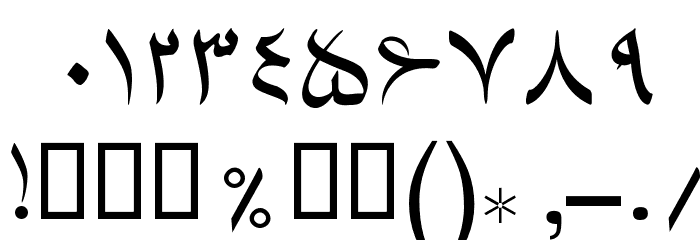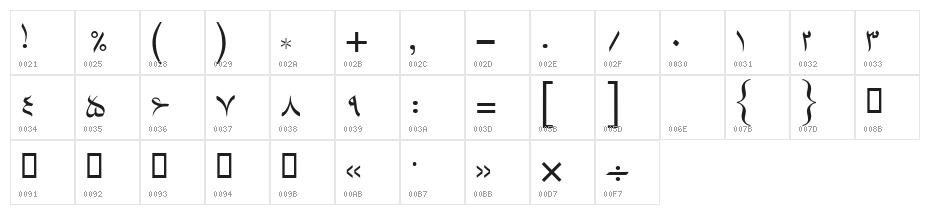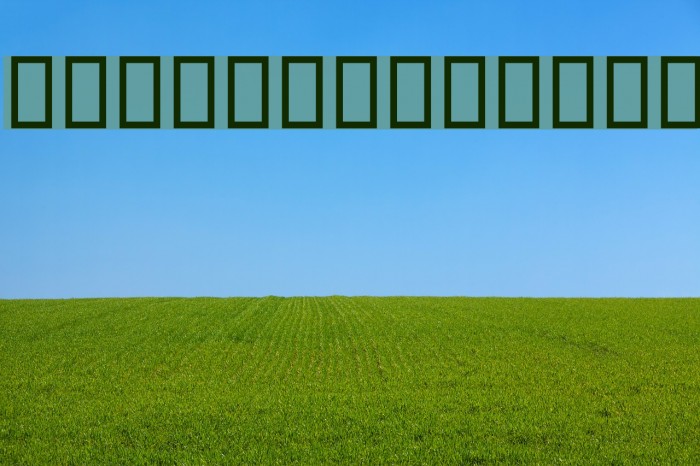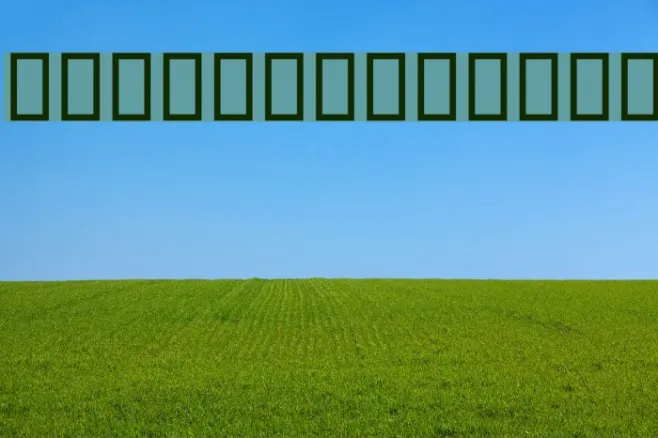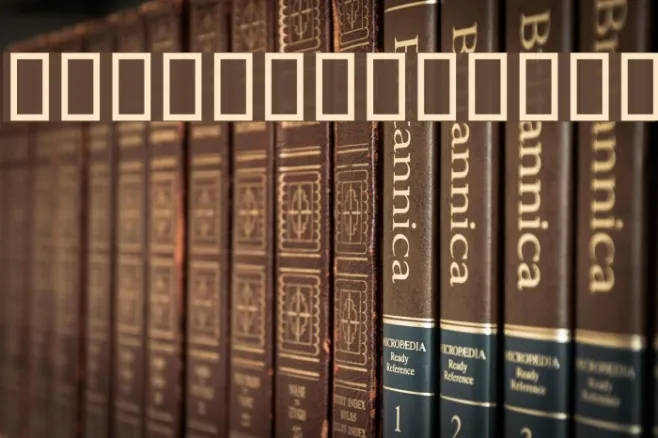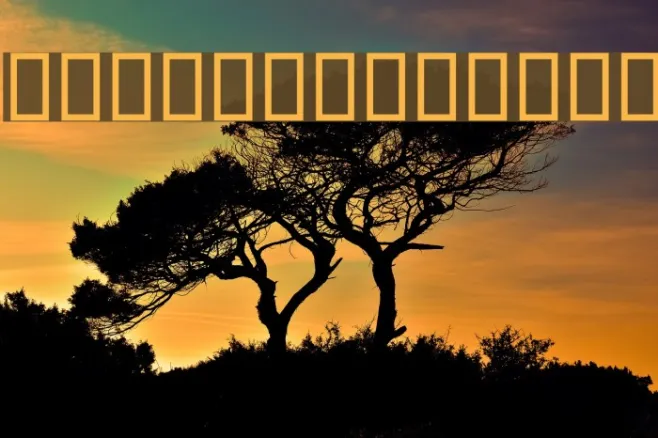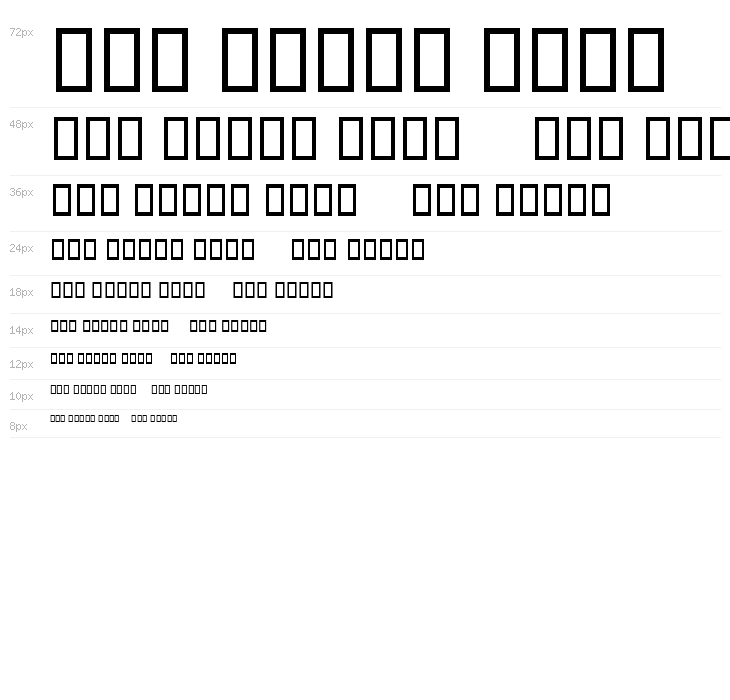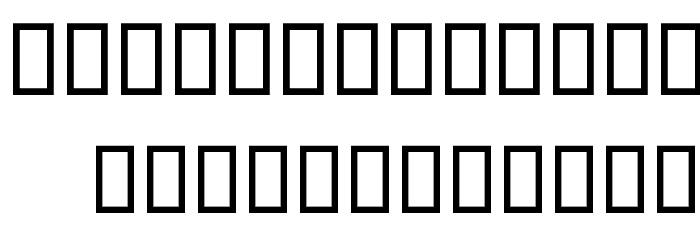
Gol Font
Gol Description
This font features numerals with a distinct calligraphic and flowing style, reminiscent of traditional Persian or Arabic script, with elegant curves and moderate stroke contrast. The punctuation marks are simple and clear, complementing the ornate numerals.
| Overall Style | Decorative, Calligraphic, Artistic |
| Use Case | Logos, Headlines, Posters, Certificates |
| Proposed Projects | Cultural event posters, artistic branding, book covers, decorative certificates. |